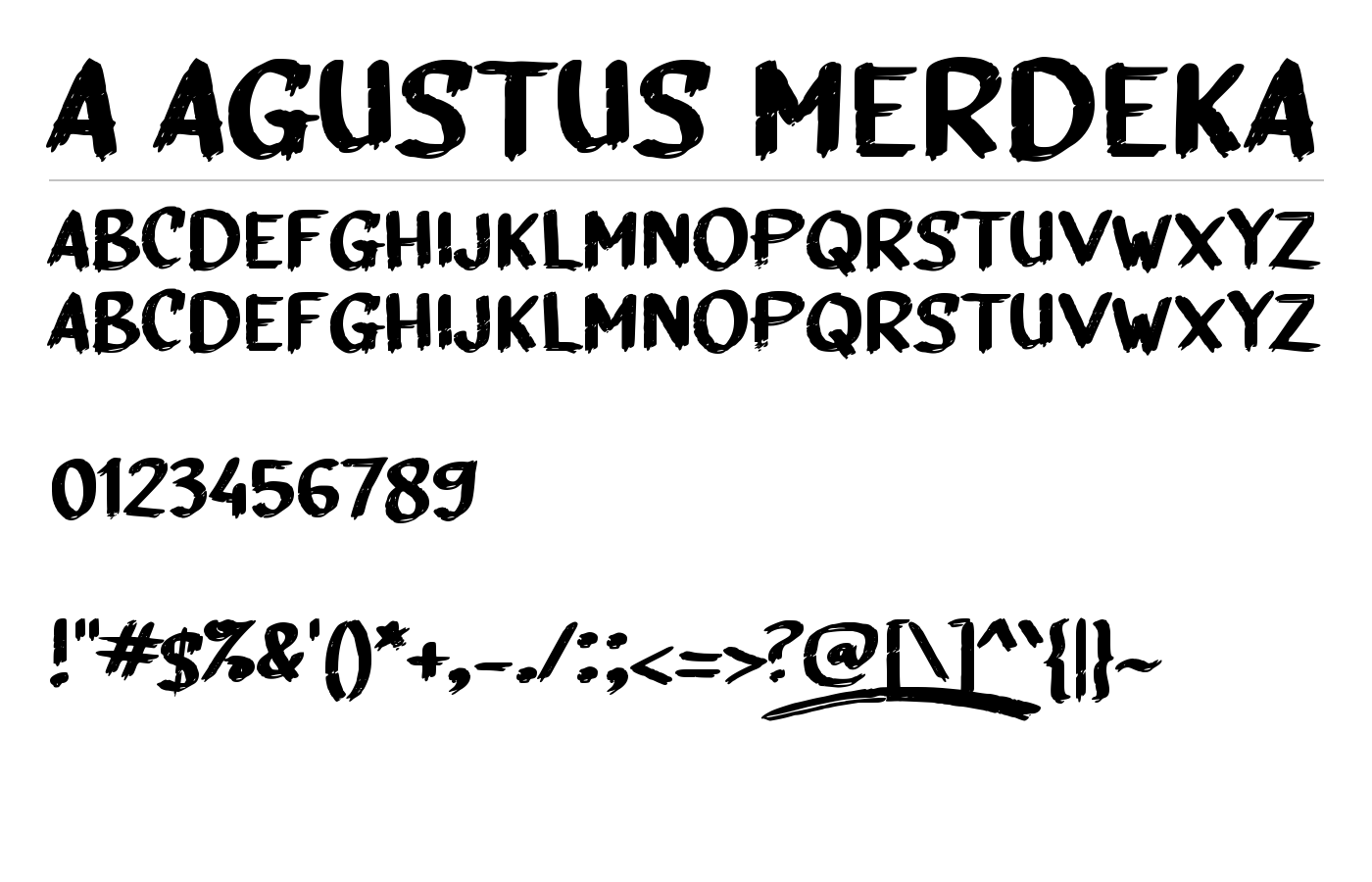
Agustus Merdeka is a bold, brush-style sans serif font with a rough, hand-painted texture that gives it an energetic and expressive feel. Its uppercase letters feature irregular stroke widths and slightly uneven shapes, lending a casual, artistic vibe perfect for dynamic headlines, posters, or creative branding that seeks a lively, informal character. This font works well where you want to capture attention with a strong, playful personality while maintaining readability.
a Agustus Merdeka Font